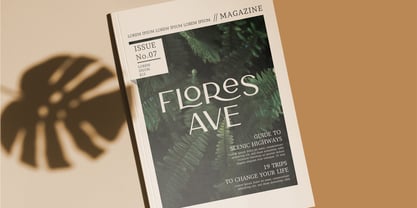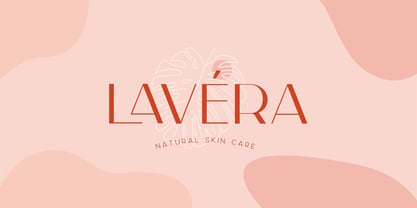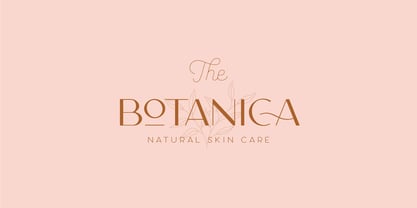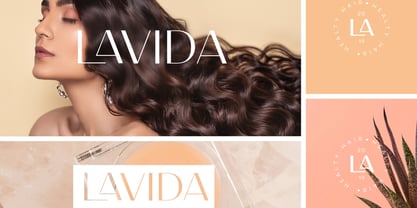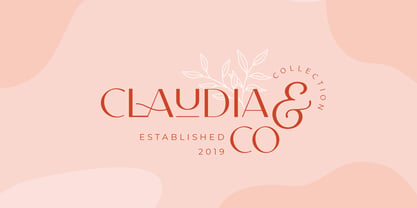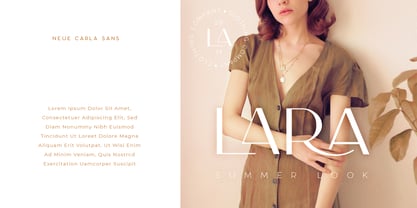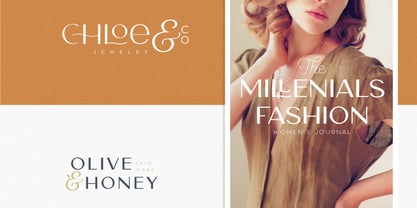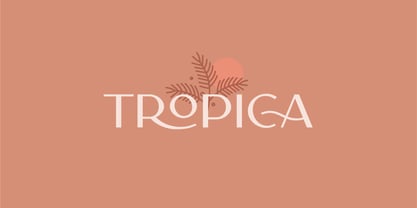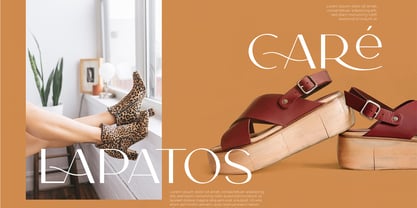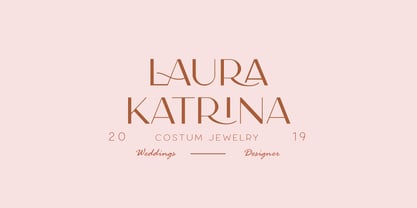
CCS Neue Carla Sans
The CCS Neue Carla Sans Font Family was designed by Kurt Harahap and published by Creative Corner Studio. CCS Neue Carla Sans contains 4 styles and family package options. More about this family
Neue Carla Sans is a Minimalist Modern Elegant font featuring exquisite ligatures, a plethora of special alternative glyphs, and comprehensive multilingual support. This versatile typeface excels in both large and small sizes, making it ideal for a variety of applications. Whether for branding projects, logo design, clothing branding, product packaging, magazine headers, or as a chic text overlay on any background image, Neue Carla Sans delivers a stylish and sophisticated touch to your designs.